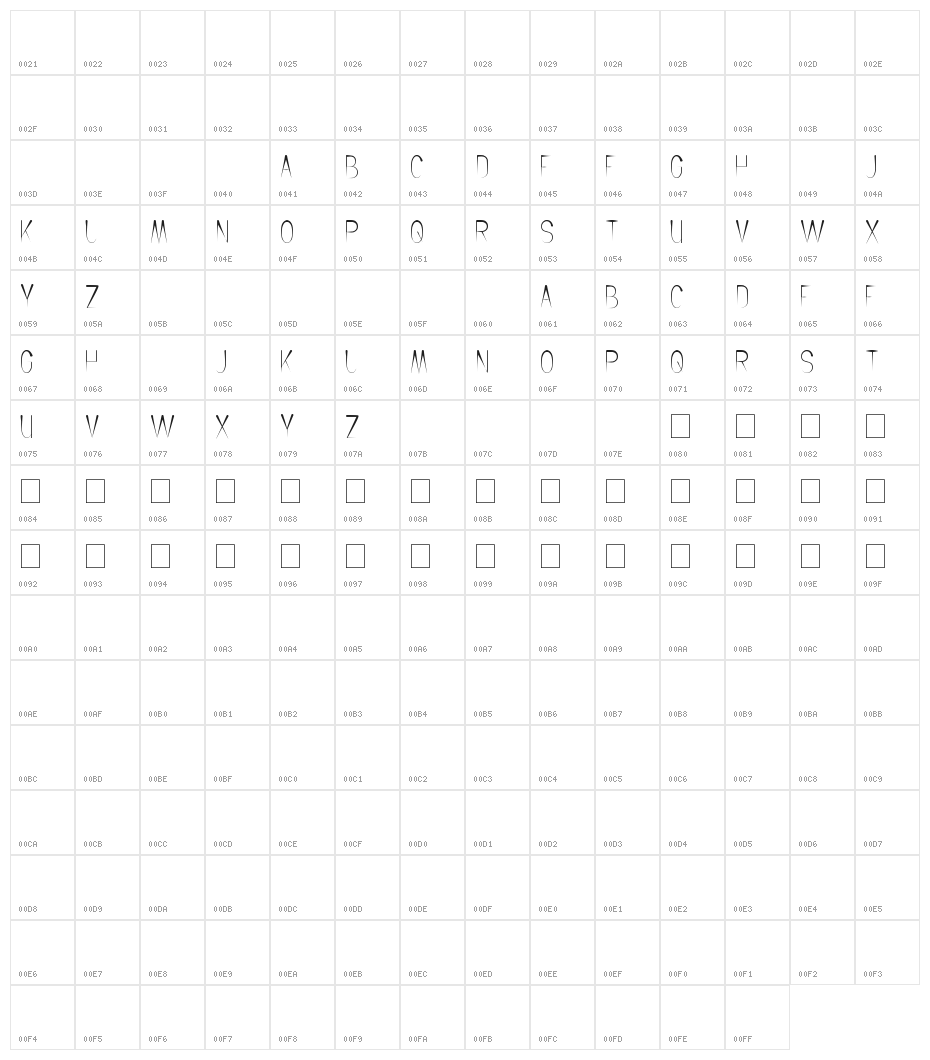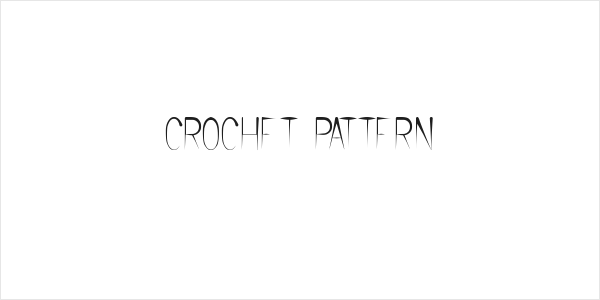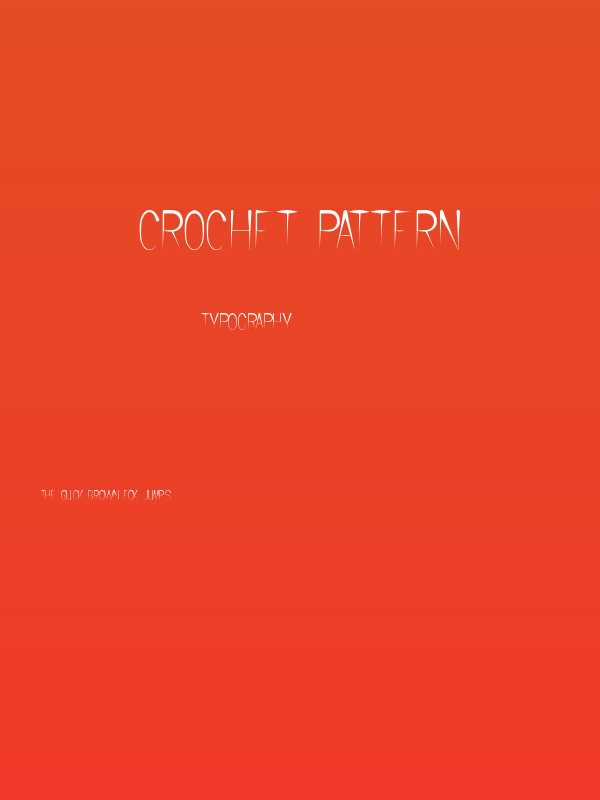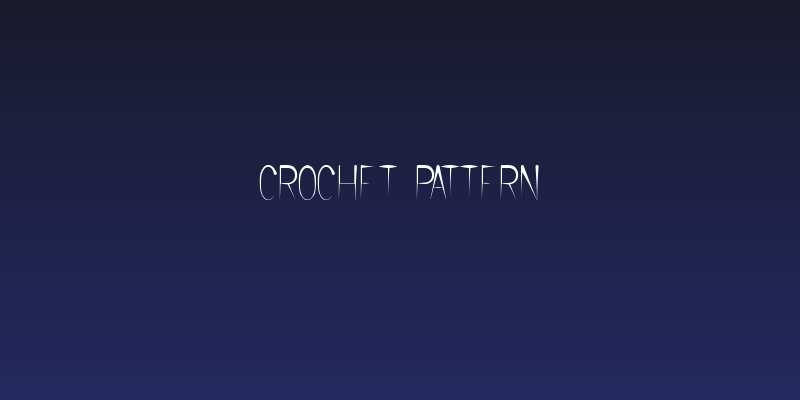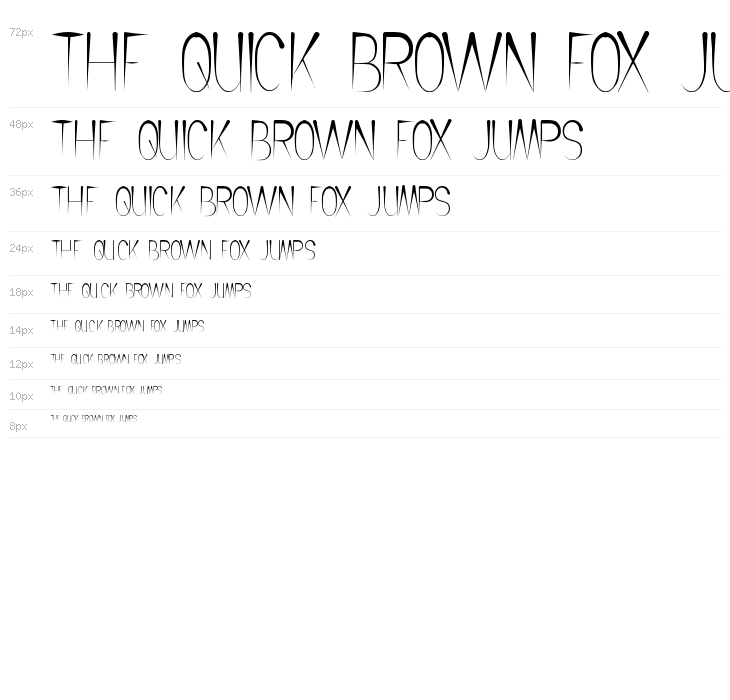
CROCHET PATTERN Font
CROCHET PATTERN Description
This font features a unique and artistic design with elongated and narrow letterforms. The strokes are thin and delicate, giving it a sophisticated and elegant appearance. The uppercase letters have a distinctive style with varying stroke widths, creating a dynamic and visually interesting effect. The overall look is modern and stylish, suitable for creative and contemporary projects. The font's design emphasizes verticality and sleekness, making it stand out in any design context.
| Proposed Projects | Ideal for fashion branding, editorial design, artistic posters, and modern logos. |